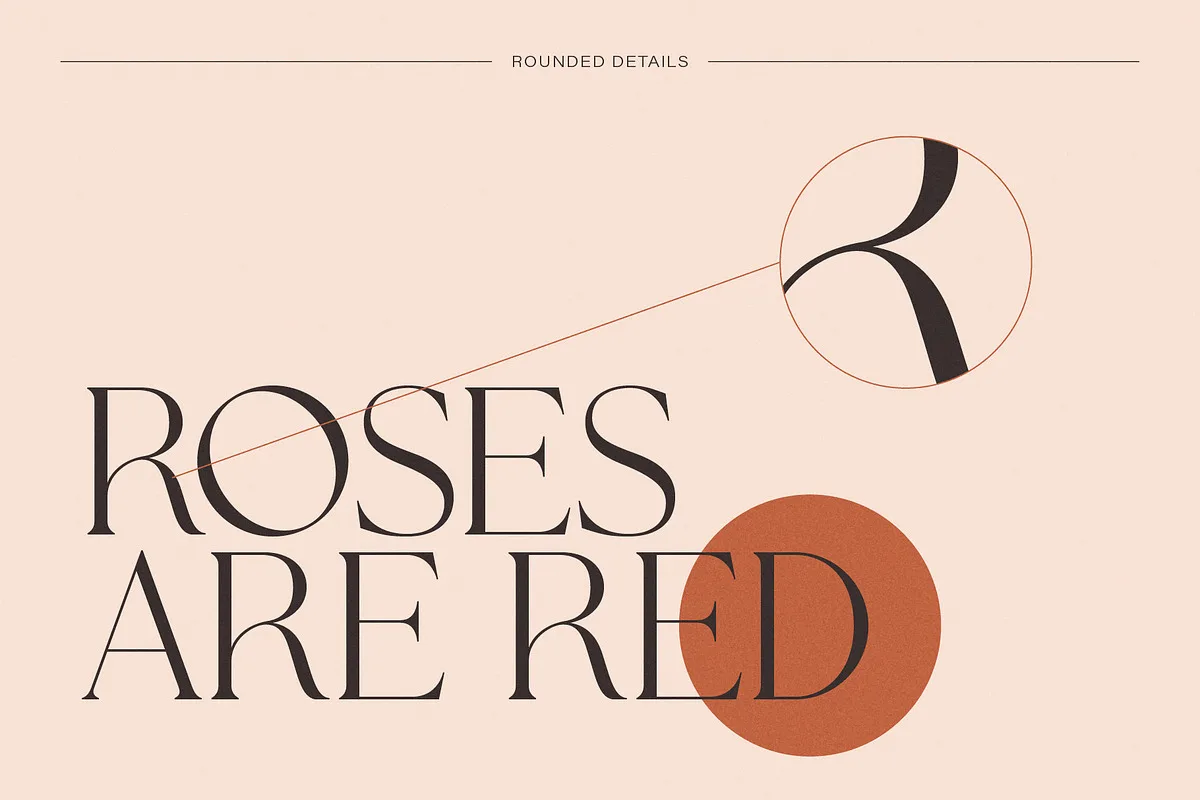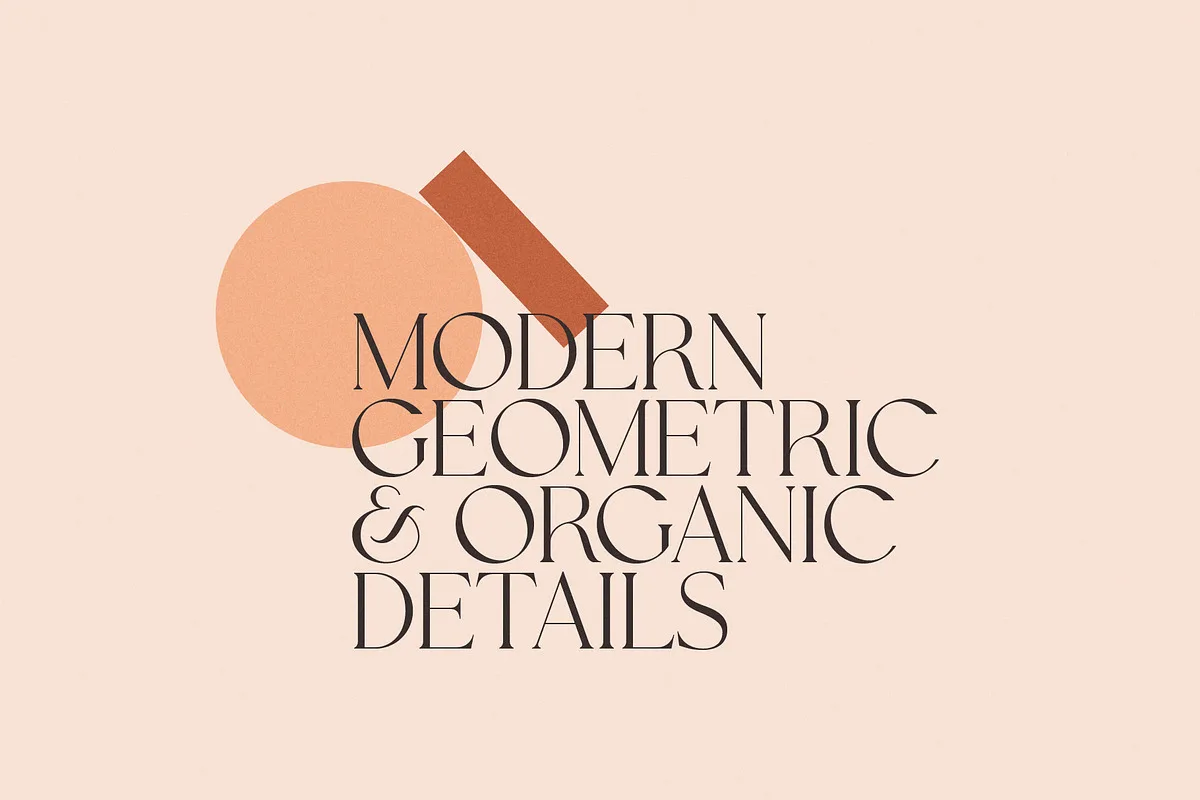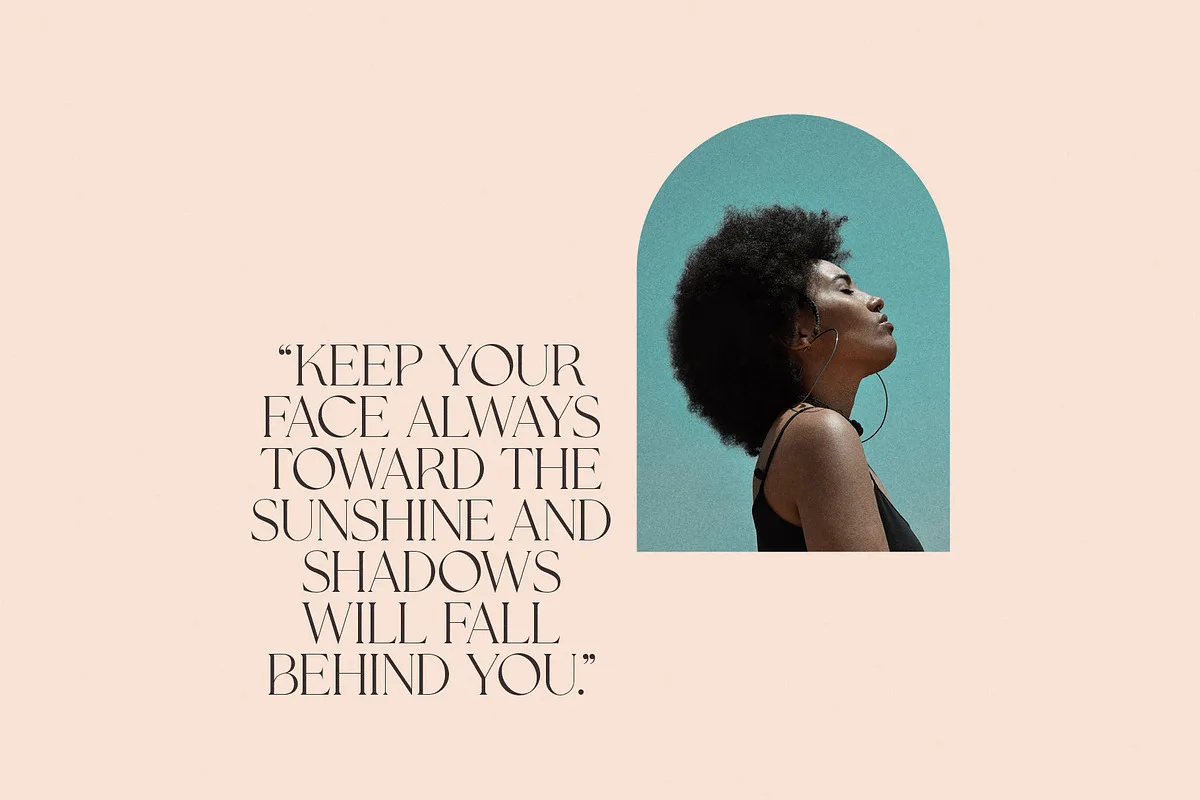
Glacior is a modern display serif font. Minimalist and classic typeface great for logos, quotes, branding or editorial design. It has a unique character by combining geometric shapes with organic curvy details. It is a unique typeface for your personality.
- Uppercase, numbers, symbols and punctuation
- Discretionary Ligatures